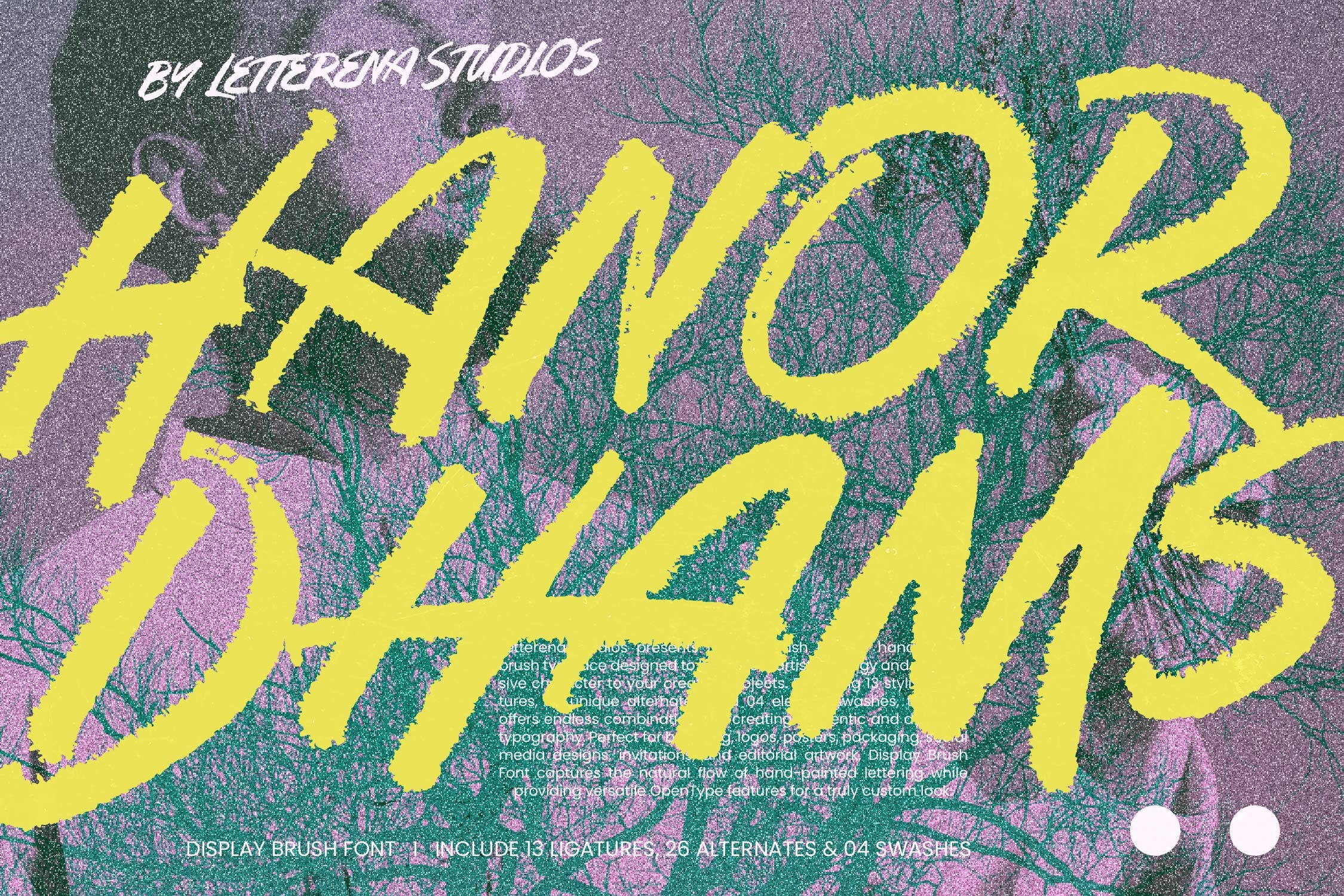
Hanor Dhams – Diplay Brush Font
Hanor Dhams – Display Brush Font. This bold strokes masterpiece captures the hand-painted aesthetic of real brushwork, delivering a high-impact visual experience that demands attention. Its textured edges and dynamic silhouettes provide an authentic, gritty feel that is perfect for contemporary designs seeking a touch of urban rebellion and artistic sophistication.
Global communication meets uncompromising style in this masterfully crafted typeface. With its extensive multilingual support, Hanor Dhams – Display Brush Font adapts seamlessly across global markets, making it incredibly versatile for international projects. This global reach ensures your message maintains its visual power regardless of the audience, bridging the gap between local charm and worldwide appeal through consistent branding.
Precision engineering meets organic texture through the inclusion of advanced OpenType features. Hanor Dhams – Display Brush Font is packed with 13 ligatures, 26 stylistic alternates, and 4 custom swashes, allowing designers to create bespoke typography with a natural flow. These additional elements ensure that every word looks unique, providing the hand-lettered finish necessary for high-end professional work.
Elevate your brand presence with unmatched versatility across a wide spectrum of industries. Hanor Dhams – Display Brush Font is the ideal application for luxury branding, streetwear apparel, and high-energy packaging design. It is also perfect for cinematic posters, editorial artwork, and social media graphics that require a bold, unforgettable statement. Transform your creative vision into a tangible reality with this premier display font.